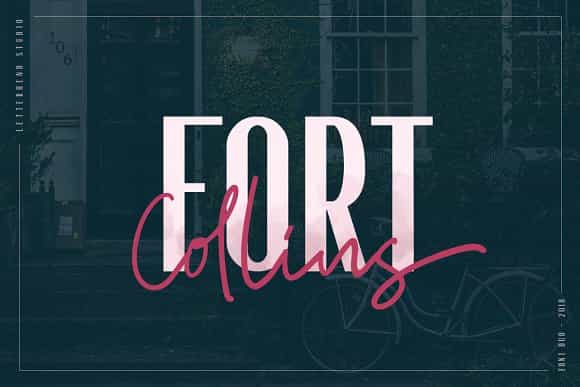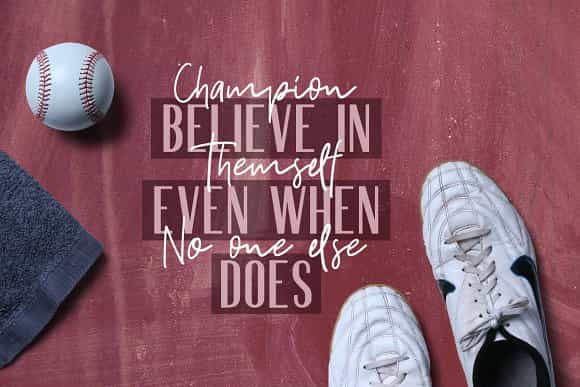
Discover Fort Collins Font Duo, part of the Sans Serif Handwritten collection—a versatile and unique font perfect for adding a personal touch to your projects. Download it for free and enjoy crafting designs with style, from invitations to social media posts. This font is available exclusively for personal use, giving you the freedom to create without limits. Unlock your creativity with Fort Collins Font Duo today!
Meet the Fort Collins Script Font! It is was designed and shares by Letterhend. Fort Collins – a couple of fonts that combine the classy and casual style at the same time. The condensed sans and the natural hand writing script are a great combination for you who is looking for a typeface that can be used as headline, logotype, apparel, invitation, branding packaging advertising etc. This typeface comes in uppercase lowercase punctuations symbols & numerals stylistic set alternate ligatures etc also support multilingual.